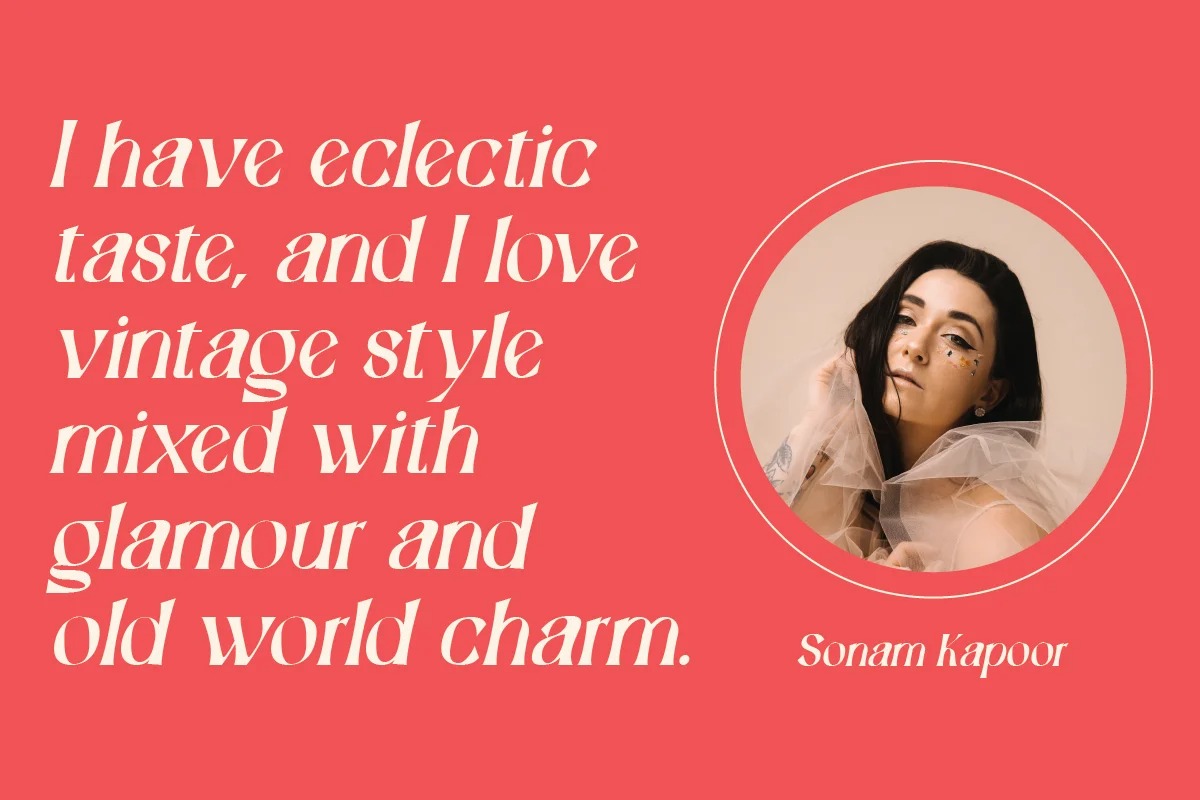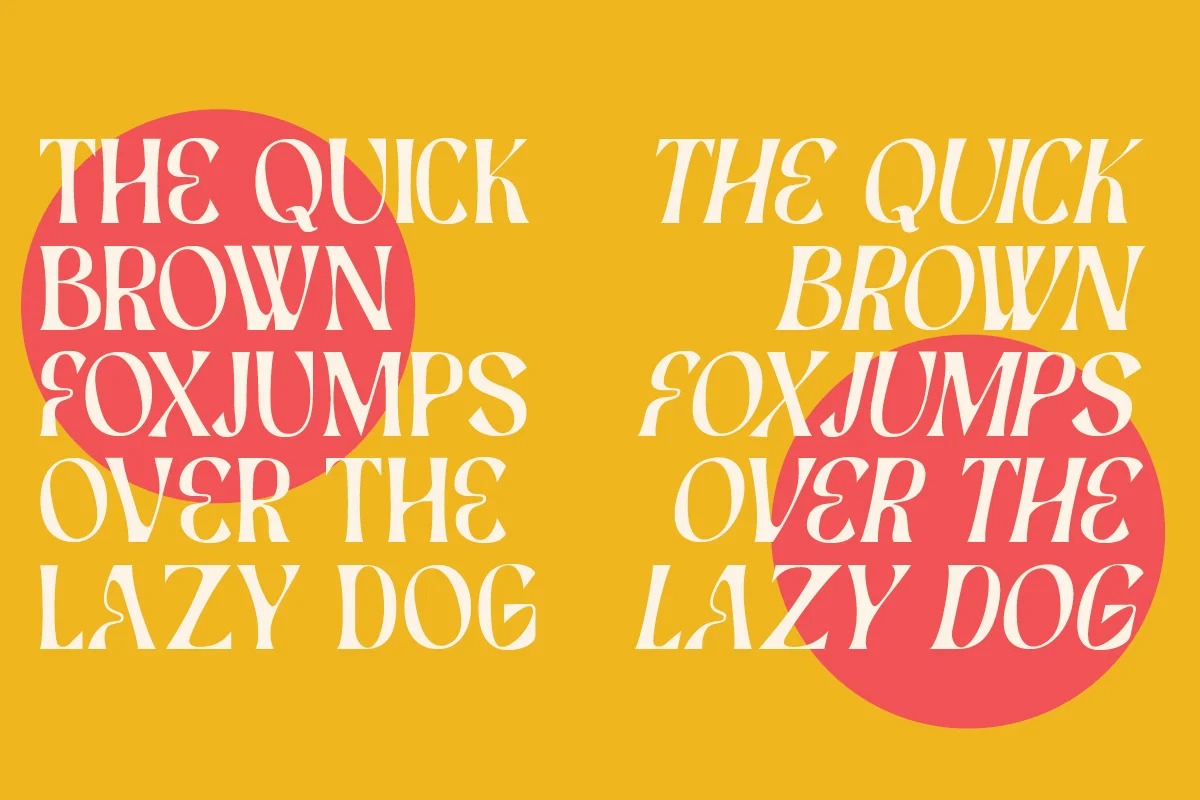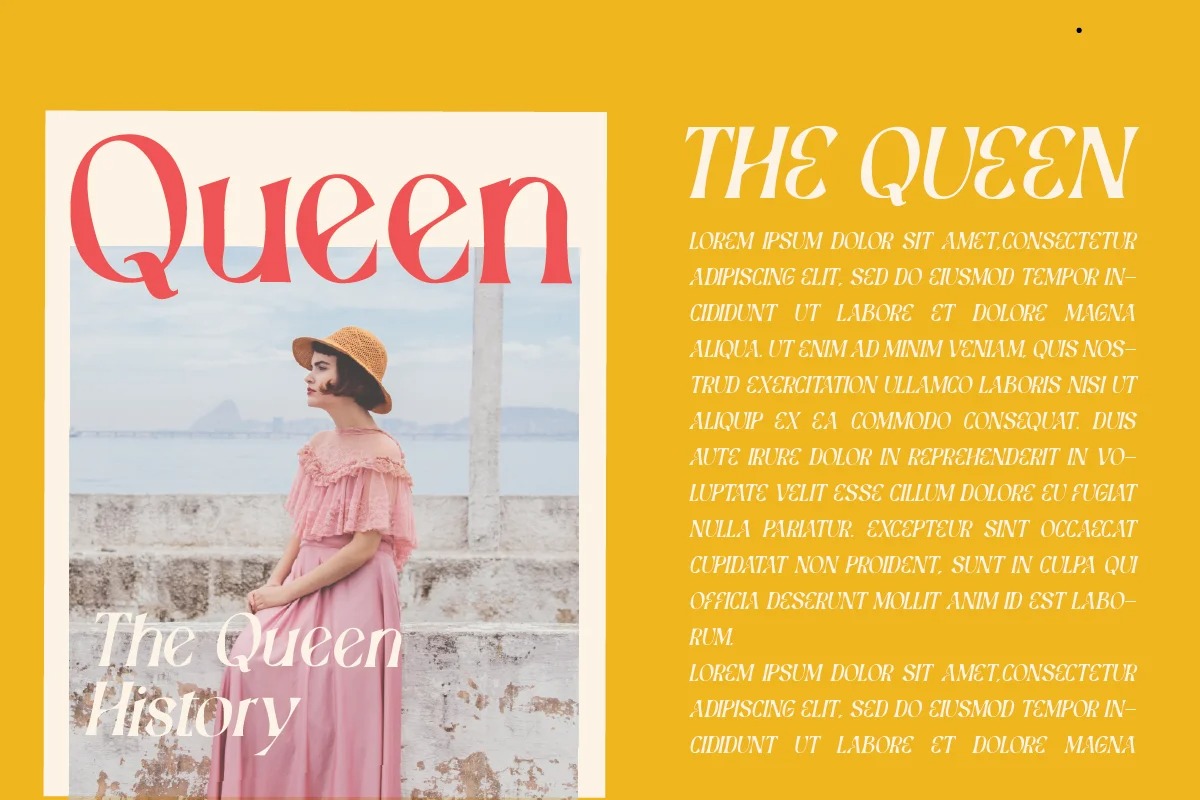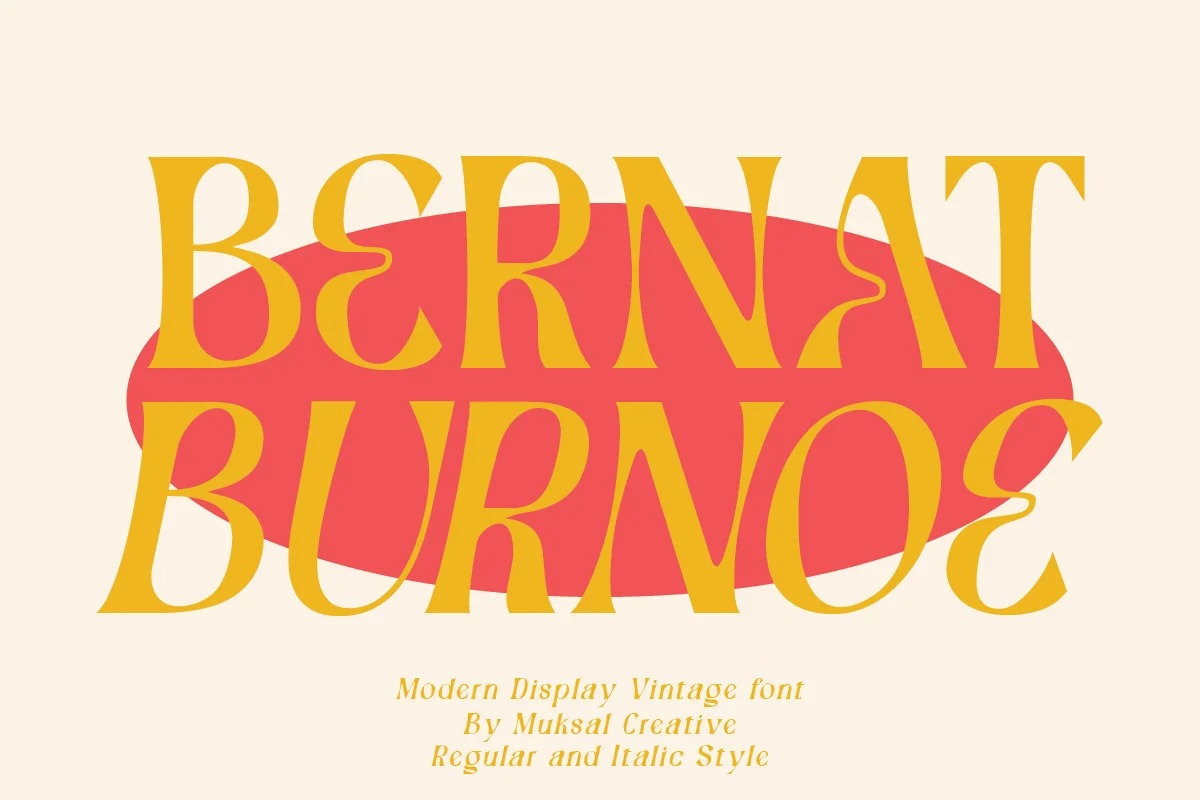
Bernat Burnoe Font
Bernat Burnoe Serif Font is a classy serif typeface that looks incredible in both large and small settings as a display. It’s a very versatile font that works great in large and small sizes. Perfect for editorial projects, Logo design, Clothing Branding, product packaging, magazine headers, or simply as a stylish text overlay to any background image.